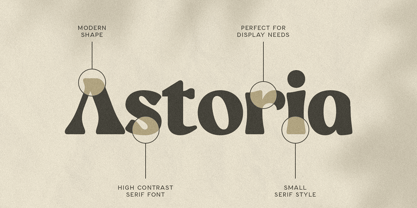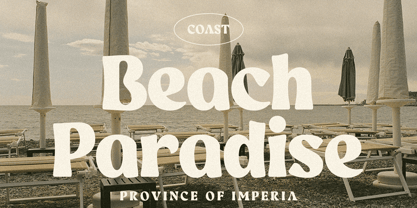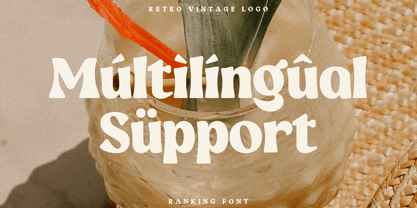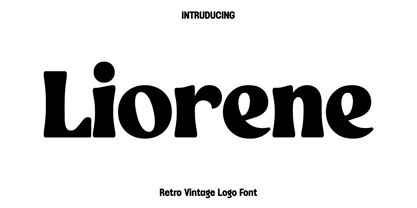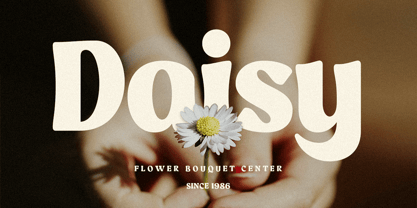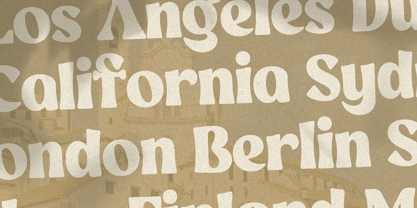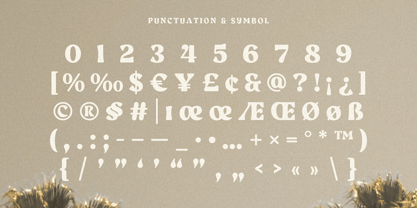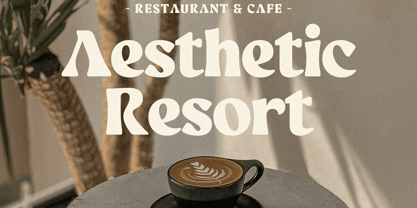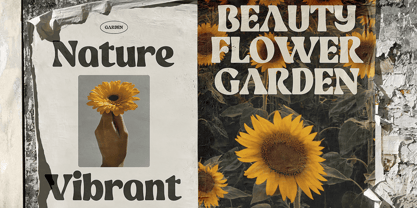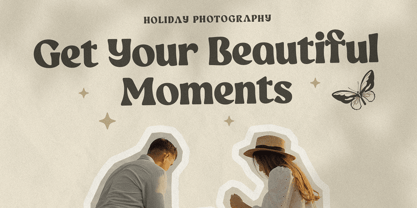
Liorene
The Liorene Font Family was designed by Olivia Love and published by Only Fonts. Liorene contains 1 styles. More about this family
Liorene – Retro Vintage Logo Font Liorene is a retro vintage logo font designed to infuse timeless character, nostalgic charm, and authentic craftsmanship into your creative projects. Drawing inspiration from classic signage, heritage branding, and vintage typography, Liorene showcases bold letterforms with meticulously crafted details that create a distinctive and memorable visual identity. Its harmonious blend of retro aesthetics and modern refinement makes it an ideal choice for designers seeking typography with enduring appeal. Perfect for logos, branding, product packaging, labels, coffee shops, restaurants, apparel, posters, editorial layouts, merchandise, and promotional materials, Liorene adds warmth and personality to every design. Whether you are developing a heritage-inspired brand or crafting a contemporary project with vintage influences, this font delivers a strong visual presence while ensuring excellent readability across both print and digital media. Liorene is tailored for designers who value typography that tells a story. Its bold vintage style evokes authenticity, tradition, and quality, assisting brands in establishing a recognizable identity that resonates with audiences. The carefully balanced proportions and timeless design allow it to excel in both large headlines and intricate logo applications. With its nostalgic personality and versatile character, Liorene transforms ordinary text into classic typography that feels bold, stylish, and unforgettable. It is an essential addition to any designer's collection for creating retro-inspired branding with a professional finish. Liorene Font Features: • Retro vintage display characters • Uppercase and lowercase letters • Numerals, punctuation, and symbols • OpenType features • Multilingual support • Bold and timeless letterforms • Ideal for logos, branding, packaging, labels, and posters • Suitable for both print and digital projects